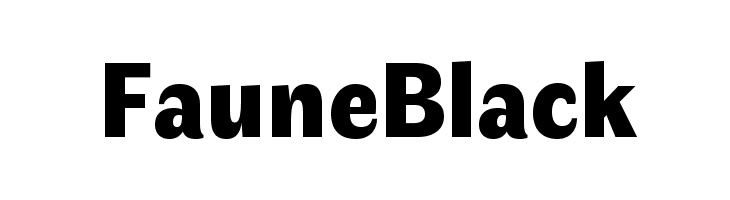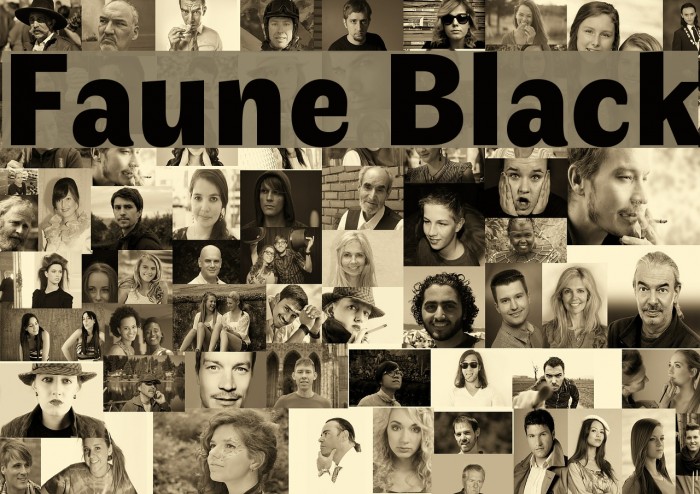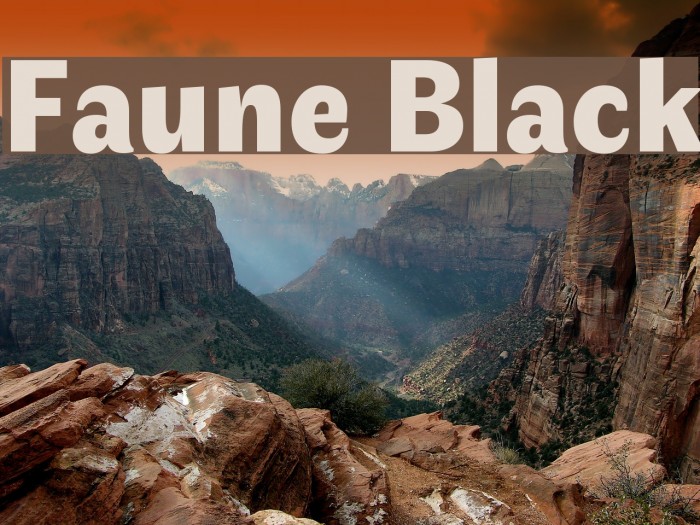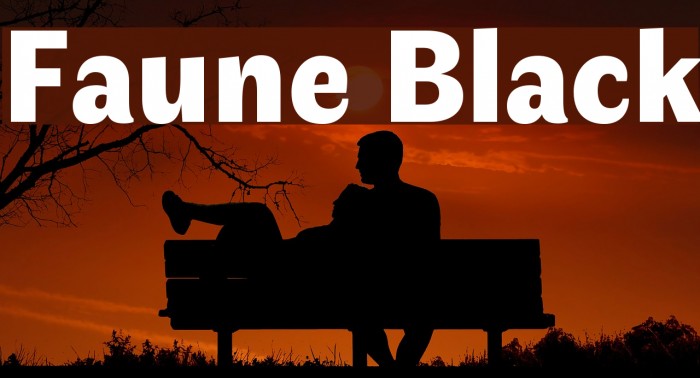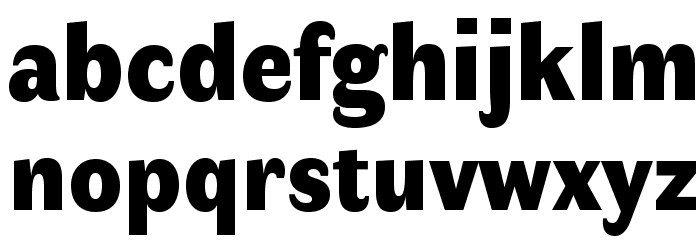
Faune Black Font
Faune Black Description
This typeface features bold, strong letterforms with a modern aesthetic. The characters are well-defined with a consistent stroke weight, giving it a robust and impactful appearance. The uppercase and lowercase letters maintain a uniform style, while the numerals and special characters are clearly legible and harmonize with the overall design. Its boldness makes it suitable for attention-grabbing headlines and titles. The font's structure is clean and straightforward, making it versatile for various design applications.
A bold, modern typeface with strong, uniform letterforms from Uncategorized fonts.
- Proposed Projects: Ideal for branding, advertising, posters, and any project requiring a strong visual impact.